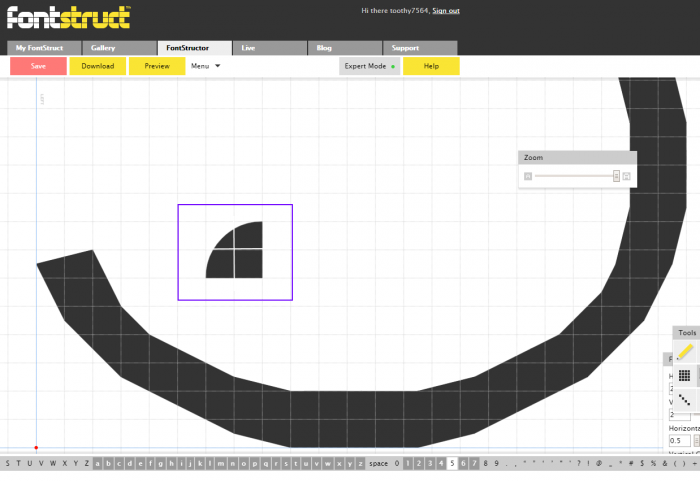
• Uses 2x2 filters.
The small bumps are a side effect of 3x3 macaroni bricks with 2x2 filters...
3x3 Macaroni bricks with only 2x2 filters...
Completed Uppercase and numerals, added lowercase.
I am planning on adding accents...
Very legible and coherent font, good job!
At first it looked promising and then I looked at the curves and saw these not-that-little bumps. I'm sure there's a solution for that, so try to find it.
@opipik I feel like one of FontStruct's biggest flaws is there isn't an option for curve blocks that are 2x as big as they can be.
If blocks in the thre shapes desginated in the image were added, or even 4x as big (as well as inner curves), I think it would radically help designs on this website.